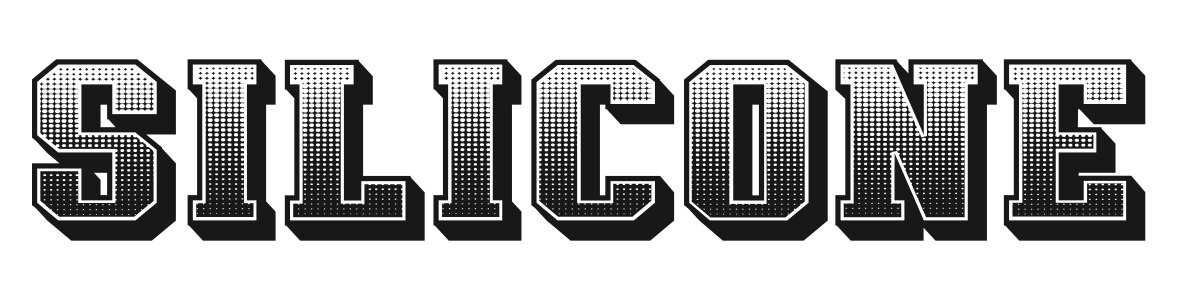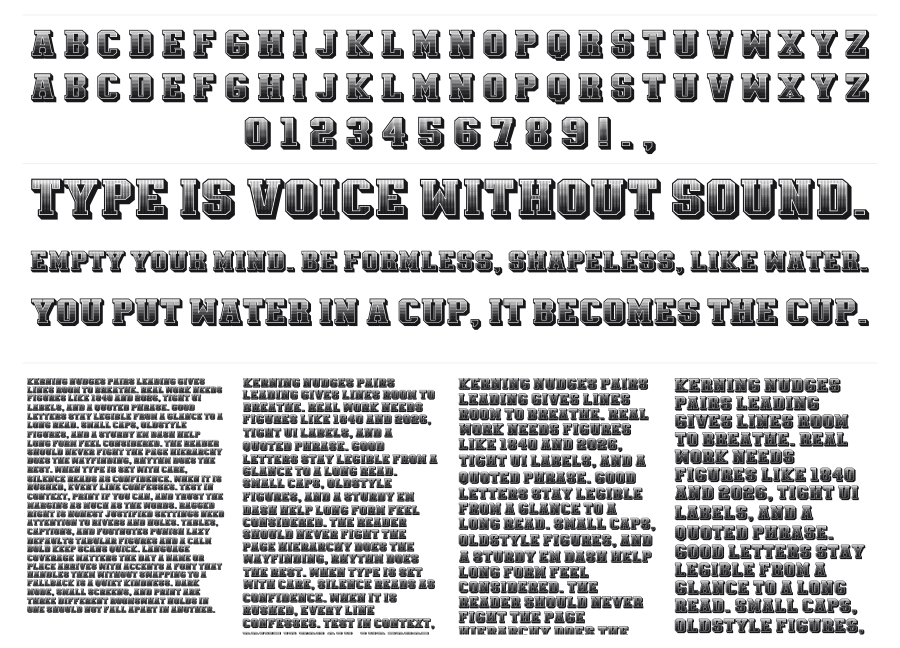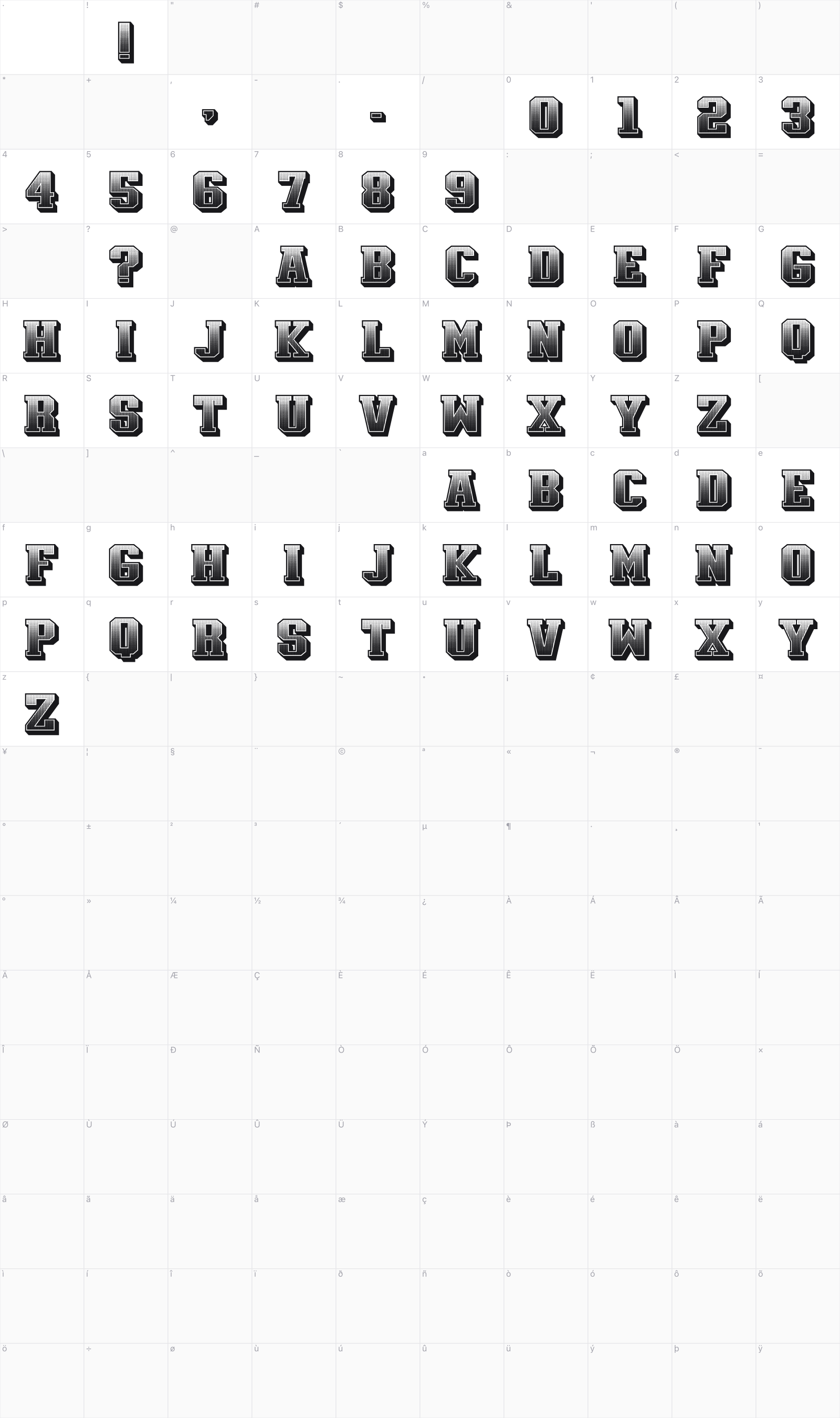
Silicone
Silicone is a bold condensed slab serif with built-in halftone dot fills and a heavy 3D drop shadow. The halftone pattern inside each letter references vintage screen printing, sports jerseys, and retro comic book aesthetics. It comes in Regular, Hollow, and Filled variants, giving designers flexibility over how much texture to layer in.